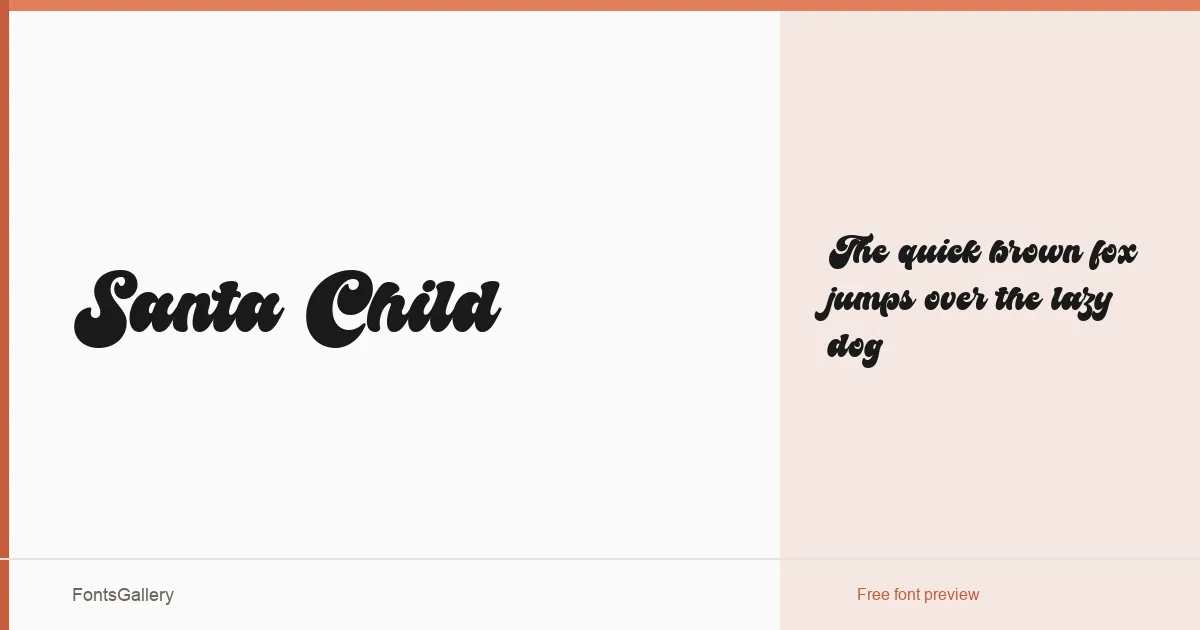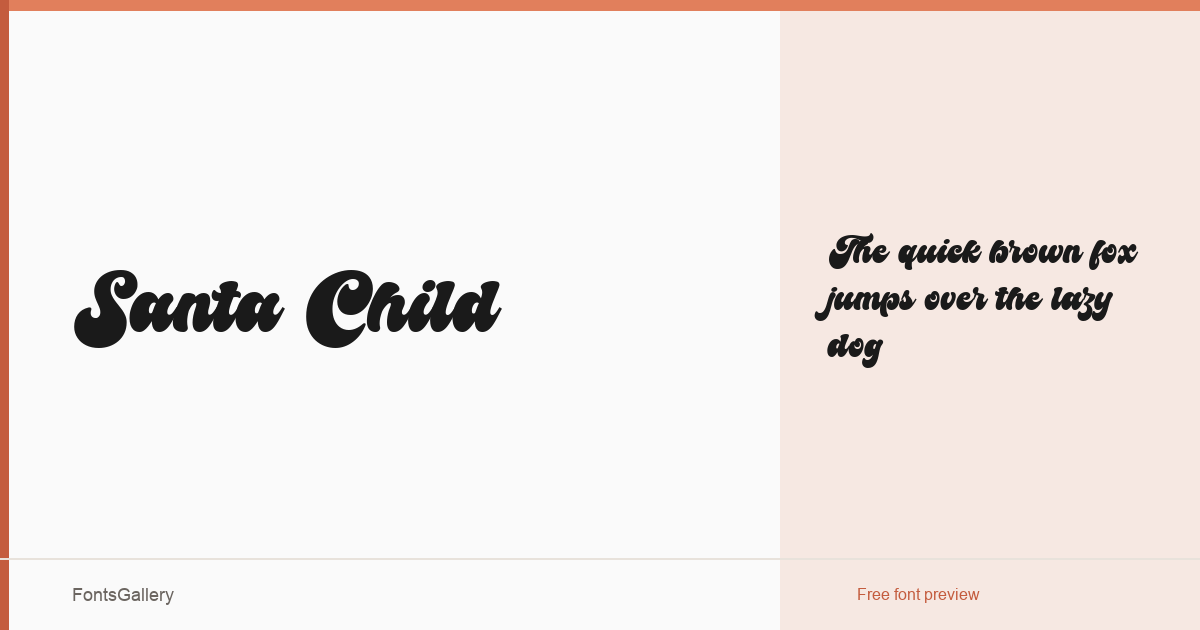
About Santa Child Font
Santa Child is a script typeface designed by Keithzo, crafted to bring a sense of warmth, charm, and festive personality to creative projects. With its playful yet romantic character, it strikes a delightful balance between whimsy and vintage elegance. This font is an expressive choice for designers looking to evoke nostalgia and heartfelt emotion in their work.
As a script font, Santa Child features flowing letterforms that carry a hand-crafted, vintage quality with a lighthearted and whimsical touch. Its romantic curves and playful strokes give each character a lively, organic feel that feels both timeless and full of personality. The overall aesthetic nods to classic script lettering traditions while maintaining an approachable, festive energy.
Santa Child shines in applications such as logos, posters, branding, greeting cards, and t-shirt designs where a warm, characterful aesthetic is desired. Its expressive style makes it especially well-suited for holiday-themed or seasonal creative projects. For a well-balanced typographic composition, consider pairing it with Aresink for a complementary handcrafted look, or with Helvetica to create a striking contrast between the ornate script and clean sans-serif simplicity.